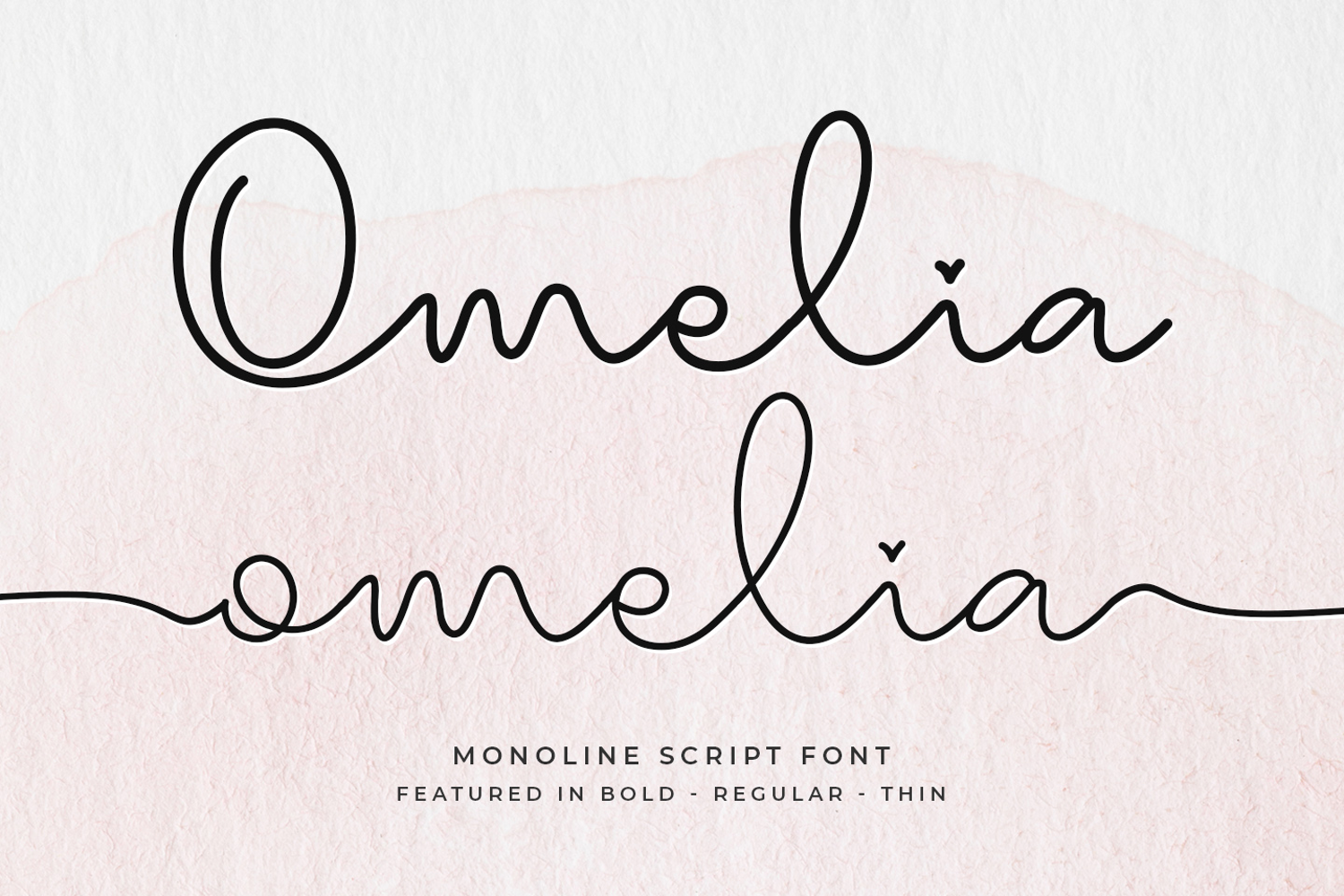
Omelia
introducing
OMELIA
- monoline script font-
OMELIA is swashy script font.
It is great for branding, quotes, logos, t-shirt designs, tote bag designs, cards, banners, social media, and more.
Came in 3 weight. Regular, Bold, and Thin
- Numeral
- Swash